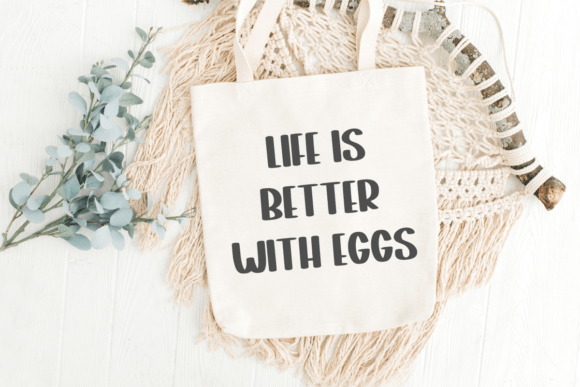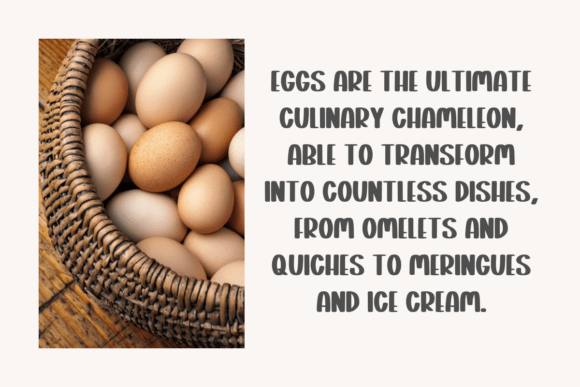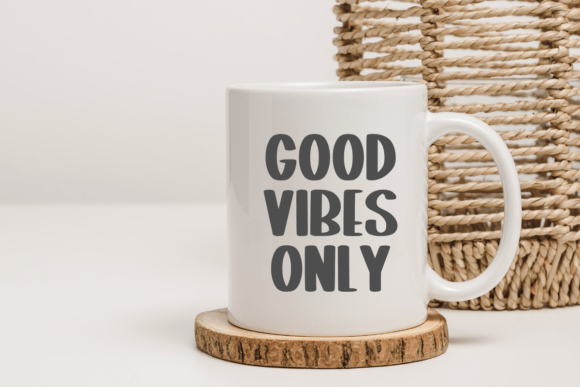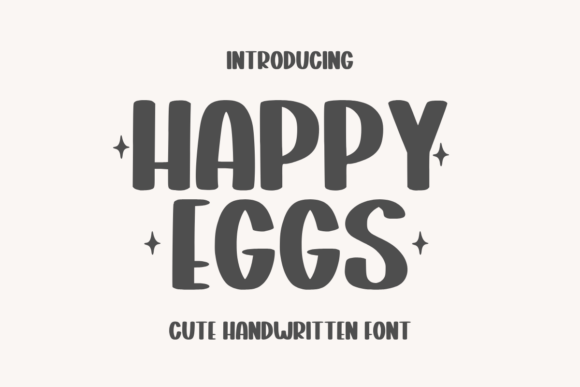
Introduction to Happy Eggs Font
Happy Eggs is a fun and bold font that’s perfect for crafts, planners, KDP, stickers, greeting cards, and more.
With its cute and friendly style, it works great for Cricut, sublimation, and creative DIY projects Ideal for crafters, designers, and makers.
Why Choose Happy Eggs Font?
Happy Eggs Font offers exceptional quality and versatility, making it a valuable addition to your design toolkit. Whether you’re creating for personal projects or commercial use, Happy Eggs Font delivers professional results.